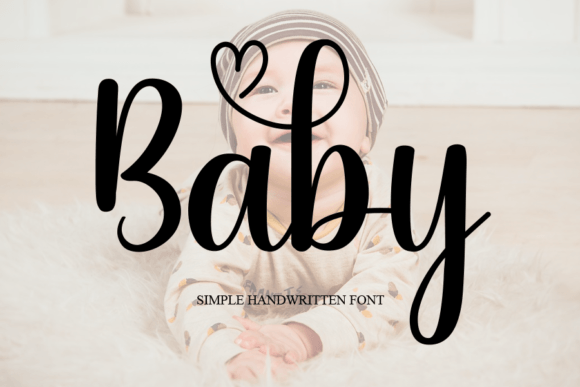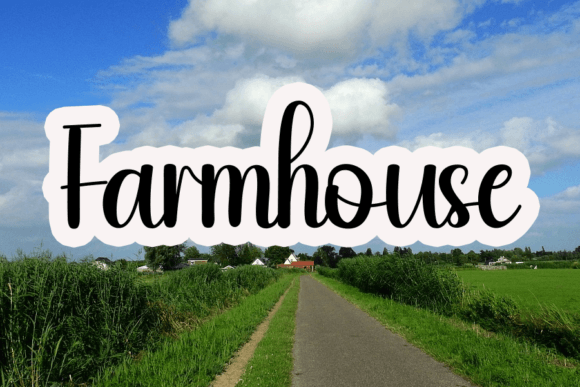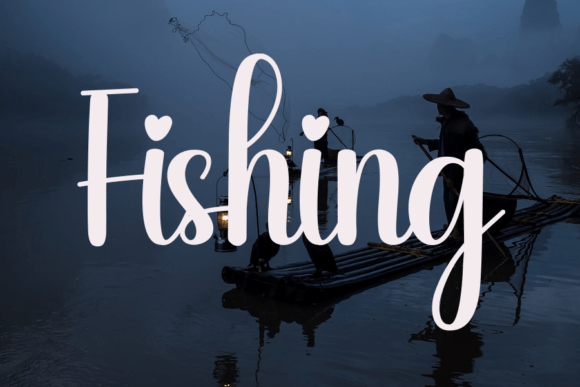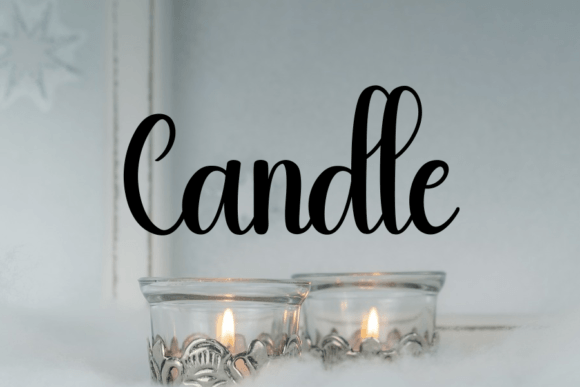
About the Baby Font
Get ready to be inspired by Baby Font, a fresh and dynamic typeface for modern creators. Baby feels equally charming and elegant. It looks stunning on wedding invitations, thank you cards, quotes, greeting cards, logos, business cards, and every other design which needs a handwritten touch.